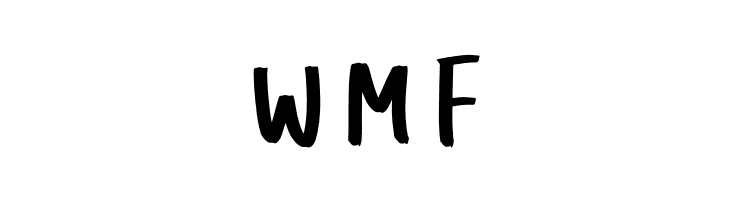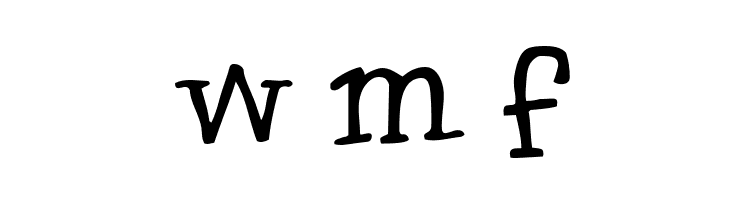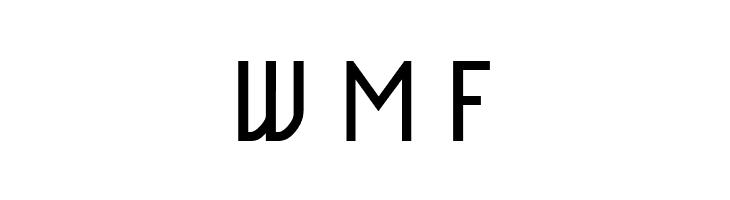
A bold, playful font with a chemical theme and bubbly, irregular shapes.
A bold, retro-inspired font with thick, rounded letterforms ideal for nostalgic designs.
A bold, modern font with thick strokes and a slightly condensed style.
An elegant script font with flowing, cursive letters and refined swashes.
A playful, decorative font with starburst and circular motifs.
A playful, hand-drawn font with outlined characters and a whimsical style.
A decorative, geometric font with parallel line patterns creating a bold, modern look.
A chess-themed icon font with bold, geometric piece designs.
A decorative font featuring stylized chess pieces and boards.
A modern, bold set of chess-inspired symbols with clean lines and geometric shapes.
A bold, playful handwritten font with thick strokes and a casual style.
An elegant script font with intricate swirls and flourishes.
A bold, playful font with a 3D effect and comic book style.
A whimsical, hand-drawn font with playful, irregular letterforms and unique illustrations.
A casual, friendly handwritten font with smooth, rounded strokes.
A playful handwritten font with lively, irregular strokes and a whimsical style.
A playful, rounded, and slightly italicized font with a modern touch.
A playful, handwritten Japanese font with rounded, casual strokes.
A playful, childlike font with rounded, consistent strokes and a slight slant.
A playful, hand-drawn font with a bold, childlike style.
A playful, hand-drawn font mimicking childlike handwriting.
A playful handwritten font with fluid, energetic strokes.
A pixelated, blocky font with a retro digital aesthetic.
A fluid and expressive calligraphy font inspired by traditional Chinese brush writing.
A bold, dramatic font with sharp, angular edges and dragon-like motifs.
A bold, pixelated font with a 3D block effect and retro video game style.
A 3D block-style font with a retro, pixelated aesthetic.